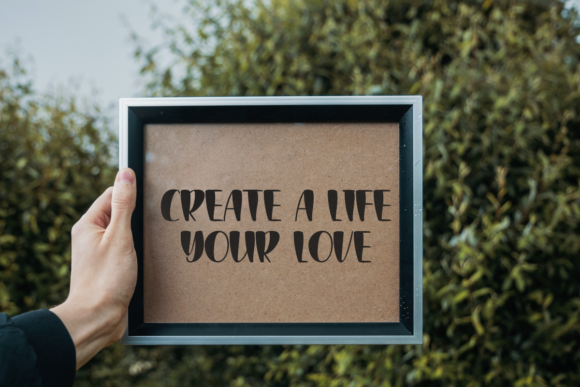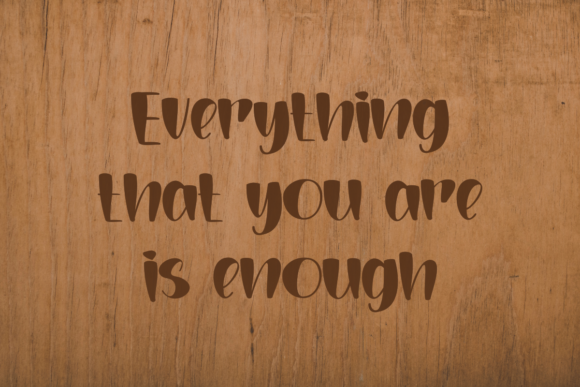
Bright Style Font
db-ku.com - Script & Handwritten -- Bright Style is a chic and whimsical handwritten font. Whether you use it for cartoon related designs, children games or just any creation that requires a lovely touch, this font will be an amazing choice.